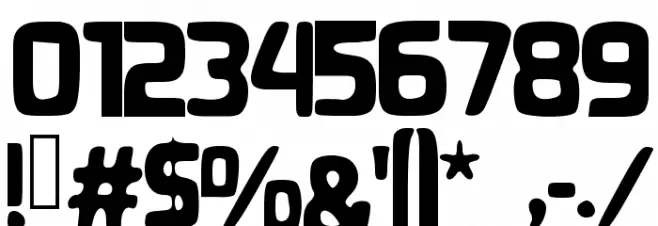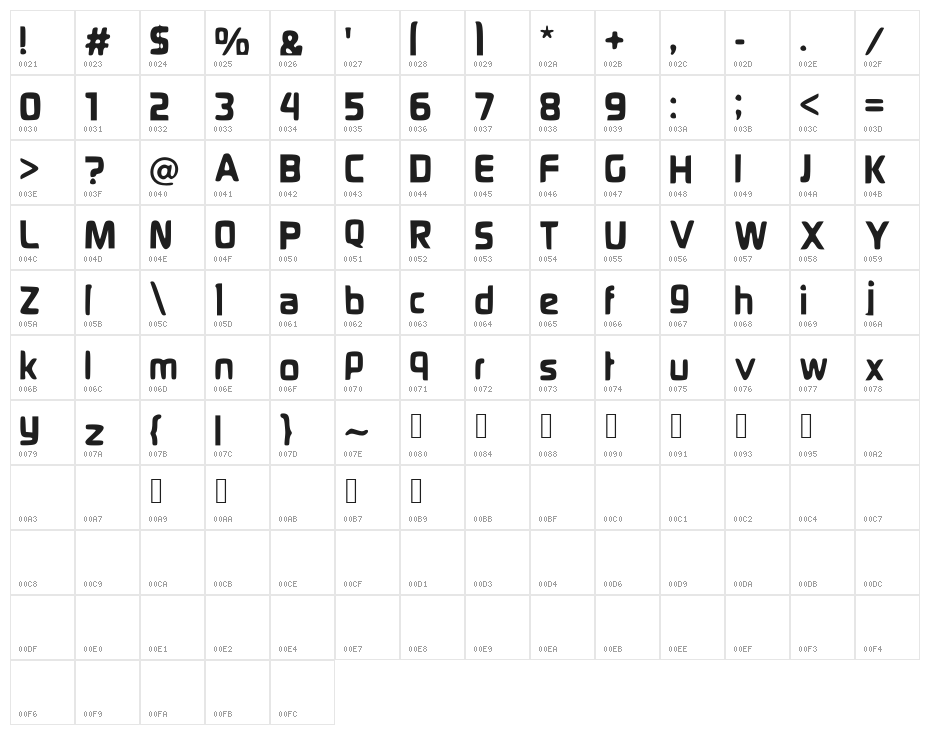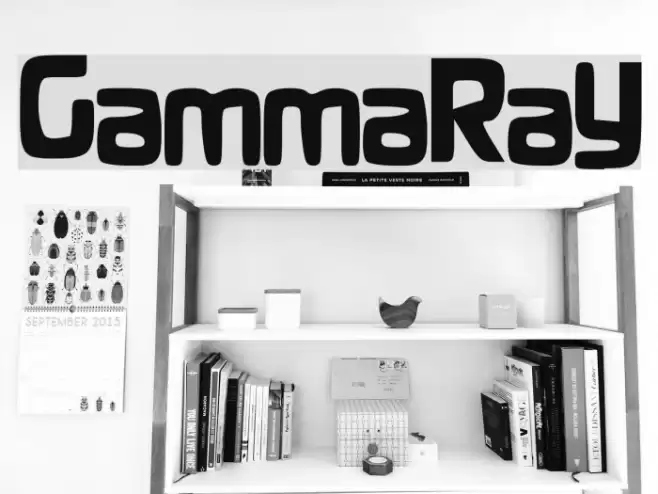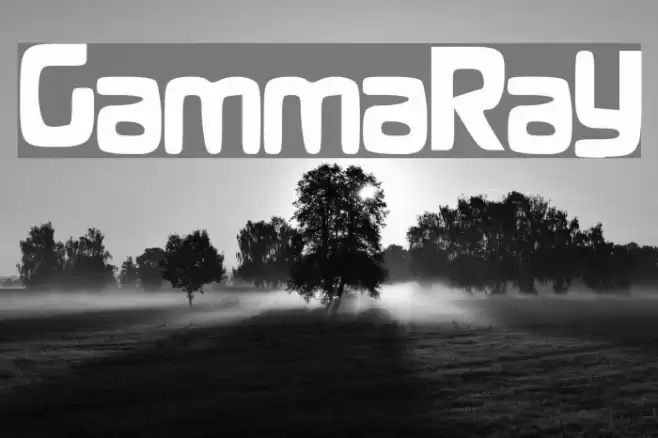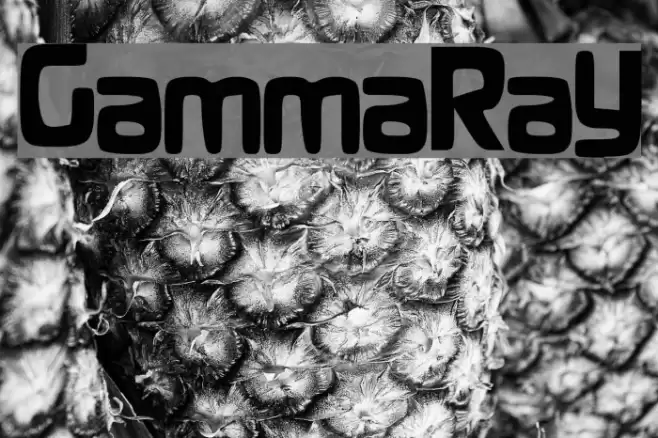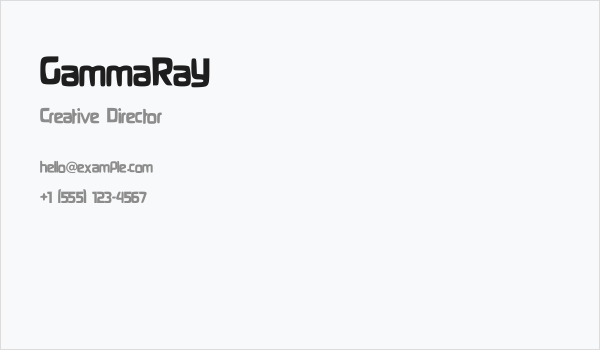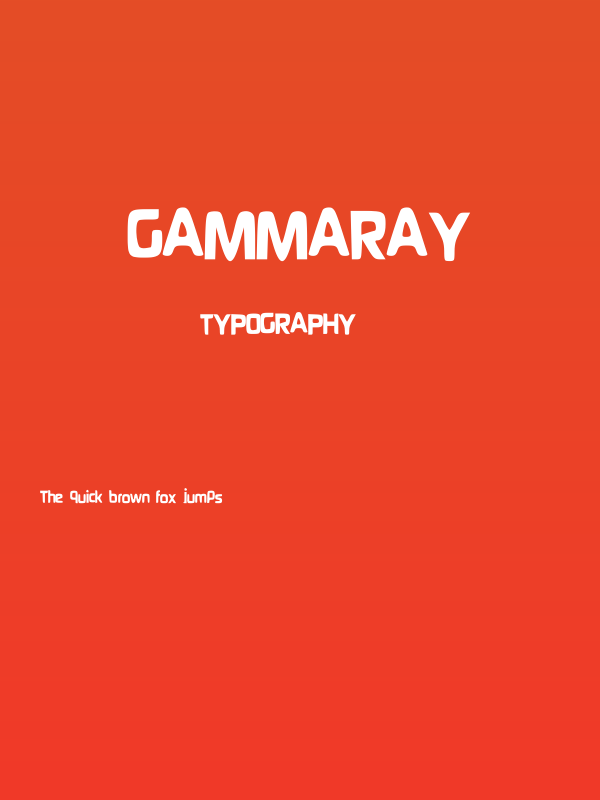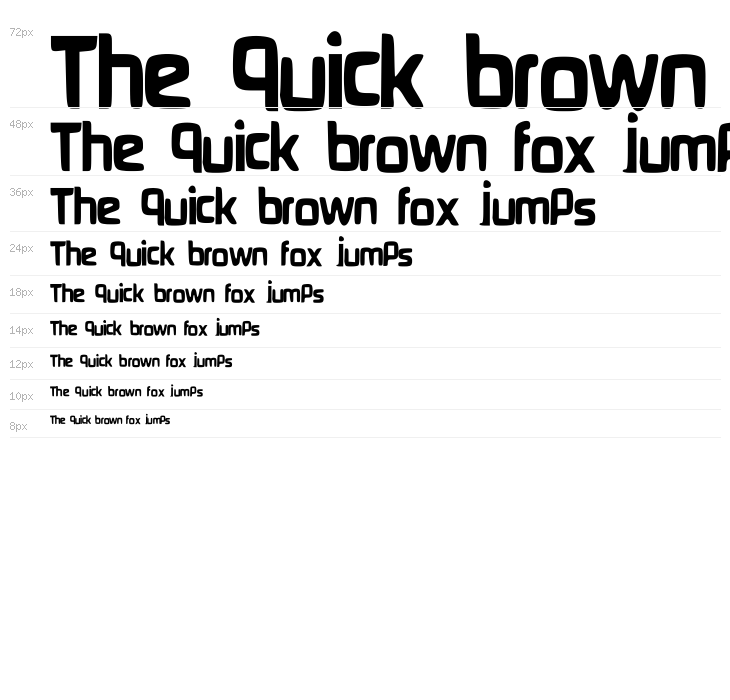
GammaRay Font
GammaRay Description
This font features a bold and rounded style with a modern and playful appearance. The characters are uniformly thick, giving a strong and impactful look. The uppercase letters are slightly wider than the lowercase, maintaining a consistent visual weight. The numbers and special characters follow the same design ethos, ensuring a cohesive appearance across all glyphs. The rounded edges soften the overall look, making it suitable for friendly and approachable designs. The font's style is versatile, lending itself well to both digital and print media.
| Proposed Projects | Ideal for branding, children's books, advertising, and digital media where a friendly and approachable tone is desired. |